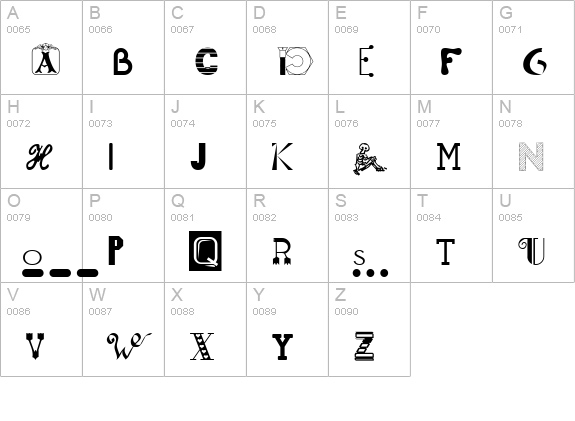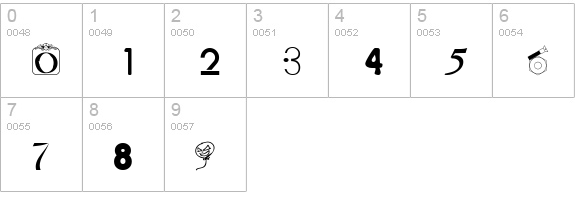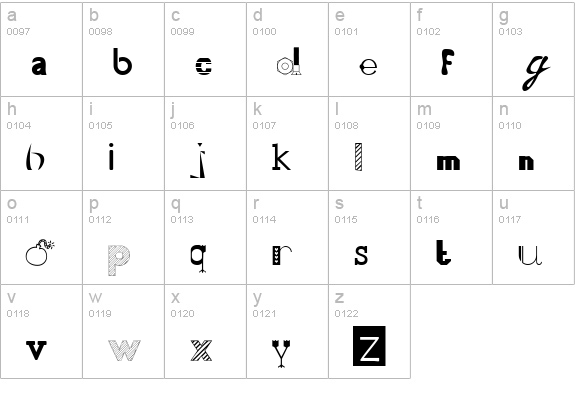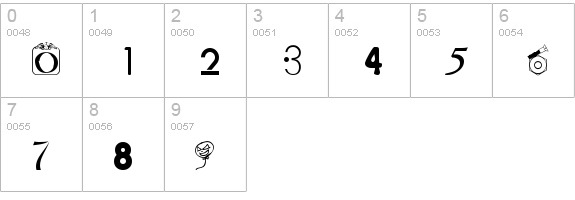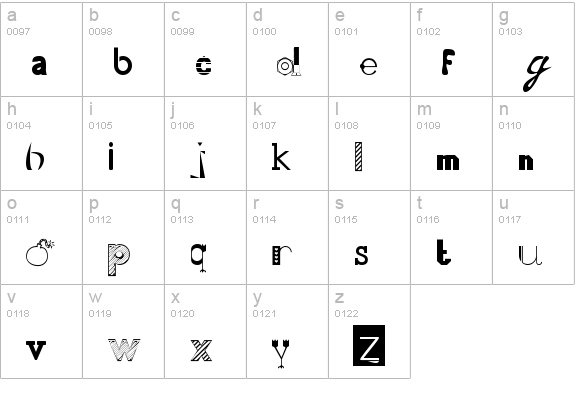
Introducing the captivating 50 Fonts 2 font collection, a stunning array of typography that is sure to elevate your design projects to the next level. With 50 unique and versatile fonts to choose from, this collection offers a wide range of styles, from elegant script fonts to bold display fonts and everything in between. Whether you're working on a branding project, a website design, or any other creative endeavor, these fonts are sure to provide the perfect touch of visual flair. Best of all, the 50 Fonts 2 collection is completely free to download at FontsMarket.com. That's right - you can access this incredible selection of fonts at no cost, making it easier than ever to add a touch of sophistication and creativity to your work. Don't miss out on this amazing opportunity to enhance your design projects with the 50 Fonts 2 font collection - download it today and let your creativity soar!